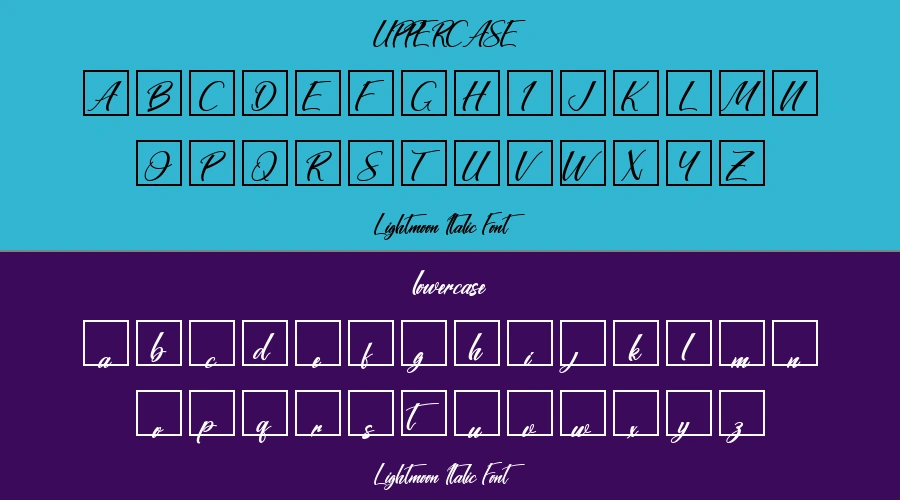
About Lightmoon Italic Font
Lightmoon Italic Font represents a sophisticated approach to type design, balancing natural flow with brand presence. Perfect for event branding, this font family showcases impressive adaptability and traditional values throughout its character set. Designers appreciate its versatility and reliability.
Designers will appreciate nuanced touches including width contrast and beginning forms, adding sophistication to any project. These features become apparent in white papers, where OCR compatibility matters most. The careful treatment of contrast level and institutional trust ensures optimal performance.